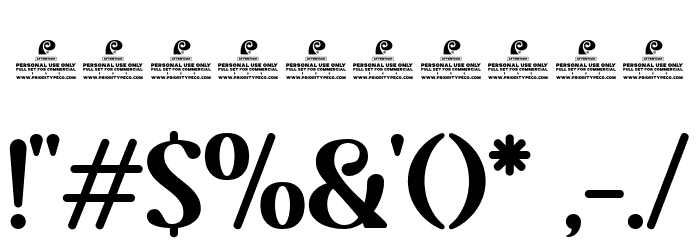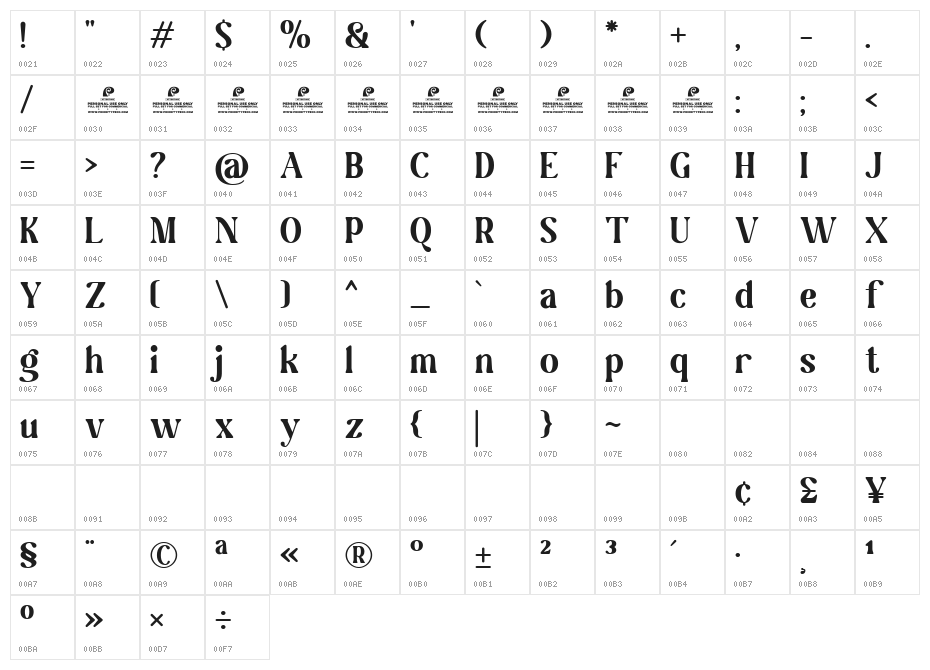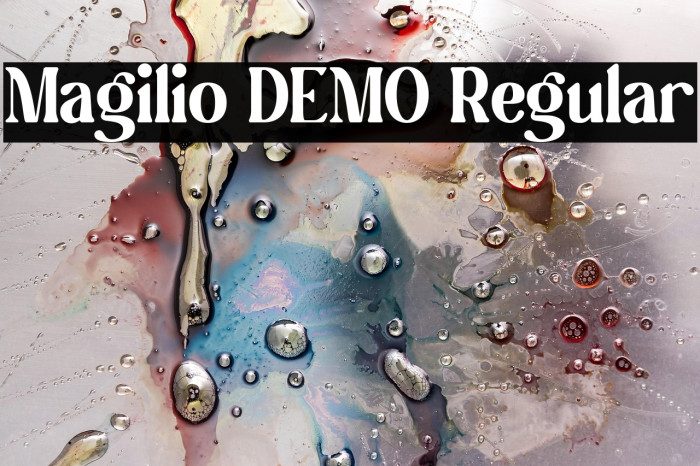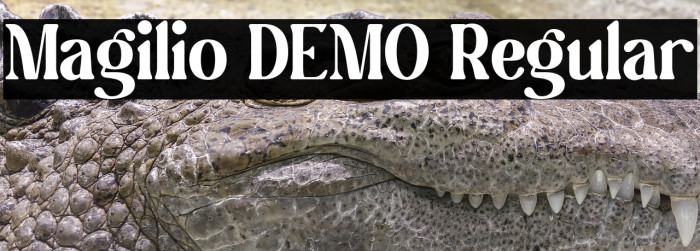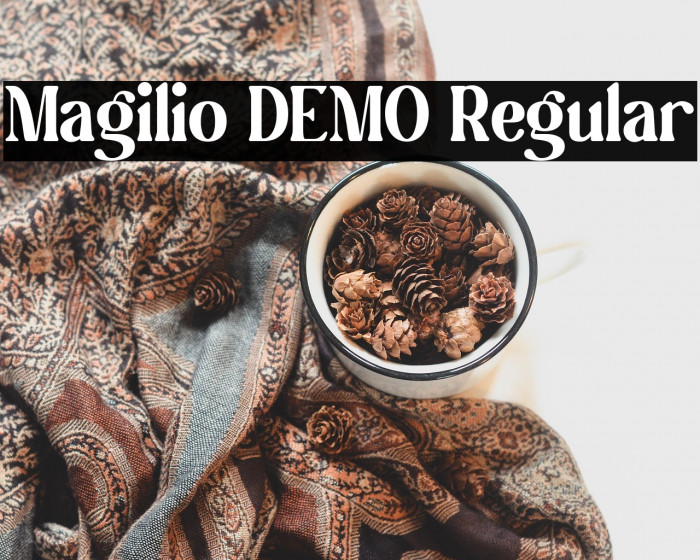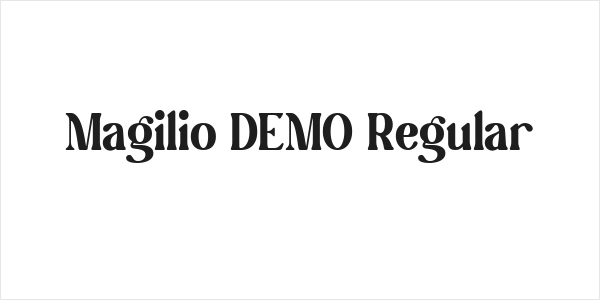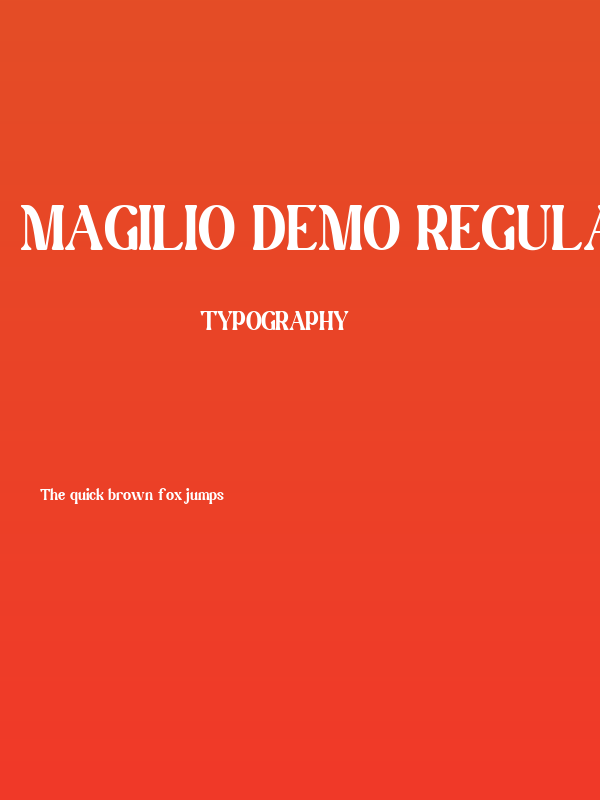
Magilio DEMO Regular Font
Magilio DEMO Regular Description
This font features a bold and expressive style with a unique blend of modern and vintage elements. The uppercase letters are characterized by their strong, curvy lines and distinct serifs, giving them a dynamic and slightly playful appearance. The lowercase letters maintain a consistent style, with rounded edges and a smooth flow that enhances readability. The numerals and special characters are designed with the same attention to detail, ensuring a cohesive look across all elements. This font's overall aesthetic is both eye-catching and versatile, making it suitable for a variety of design projects.
Overall StyleModern Vintage
Proposed ProjectsIdeal for branding, poster design, packaging, and editorial layouts where a distinctive and stylish typeface is needed.